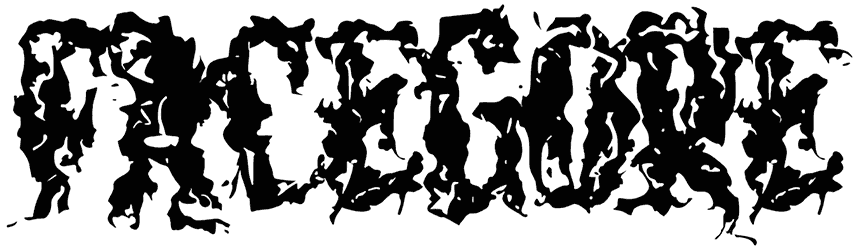
f Facegore Font
If you choose Facegore, a strong, fancy horror font with a terrifying style, you may offer your digital projects an appearance that is on the leading edge of technology.
Despite the lack of lowercase letters and legibility, you should feel free to use this font in any Halloween-themed designs you may be working on. The visual tension of your designs may be reduced by using this font, which can be found in RB’s font library and downloaded for free.